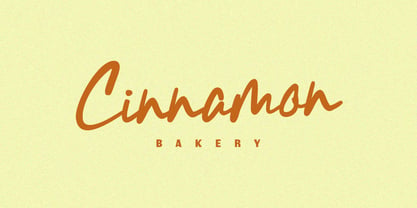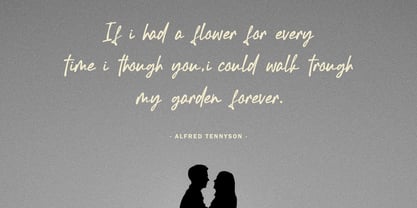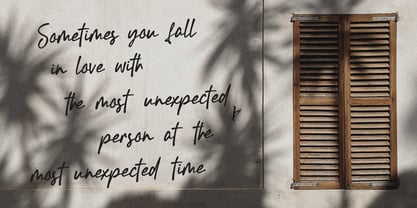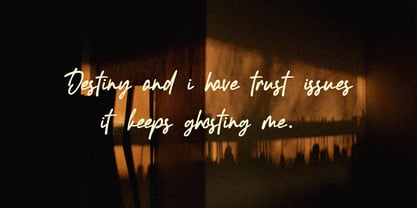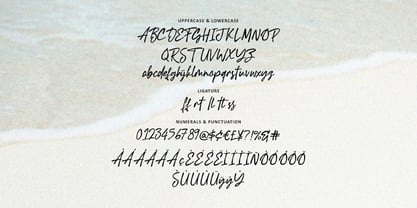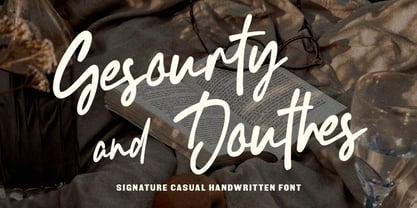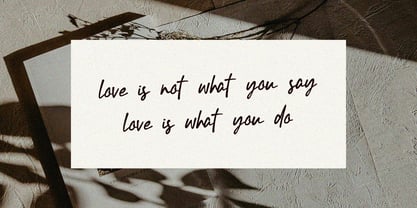
MC Gesourty Douthes
by Maulana Creative
The MC Gesourty Douthes Font Family was designed by Gilang Maulana and published by Maulana Creative. MC Gesourty Douthes contains 1 styles. More about this family
Gesourty Douthes is a beautifully crafted casual signature font that captures the spontaneous, feel of genuine handwriting. Its dynamic flow, casual brush strokes, and natural, imperfect connections give it an effortlessly cool and approachable look. Key Features: - Authentic Signature Style: Perfect for projects requiring, handwritten touch, moving beyond stiff and formal designs. - Versatile Use: Excellent for branding, logo design, social media quotes, wedding invitations, product designs, fashion projects, and much more. - Ligatures: Includes a variety of ligatures and accents for a more realistic handwritten feel and extensive language support, ensuring your text looks genuinely unique. - Complete Character Set: Offers a full range of uppercase, lowercase, numbers, and punctuation, along with multilingual characters. Ideal For: - Branding: Creating a recognizable, friendly, and exclusive brand identity. - Quotes: Designing visually engaging graphics for social media and motivational. - E-commerce: Giving your products a high-end, boutique feel. - Personalized Stationery: Making invitations, cards, and notepads truly special. Gesourty Douthes brings an energetic, yet sophisticated casual vibe that connects instantly with your audience. Download it today and let your designs speak with a signature flair!
Designers: Gilang Maulana
Foundry: Maulana Creative